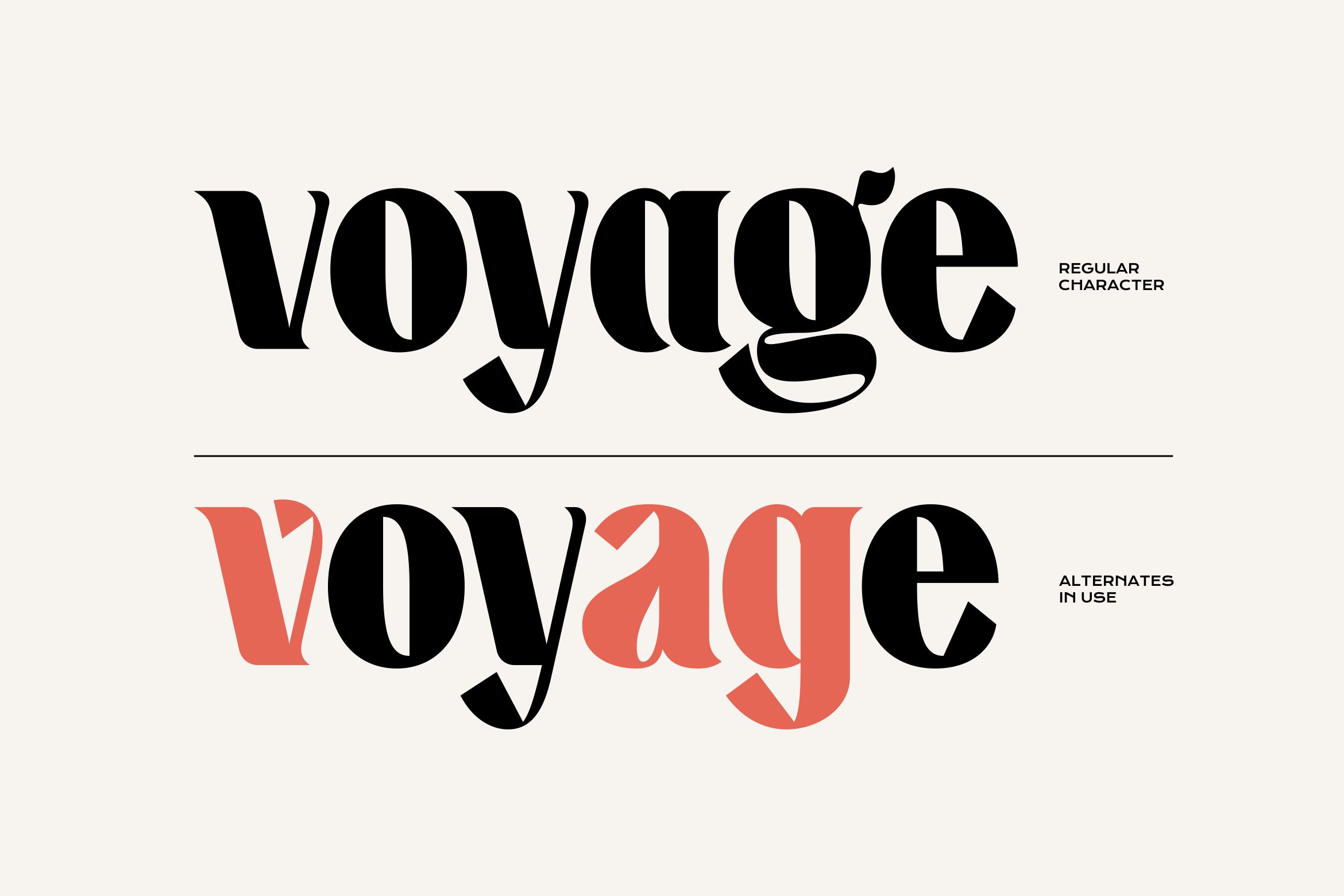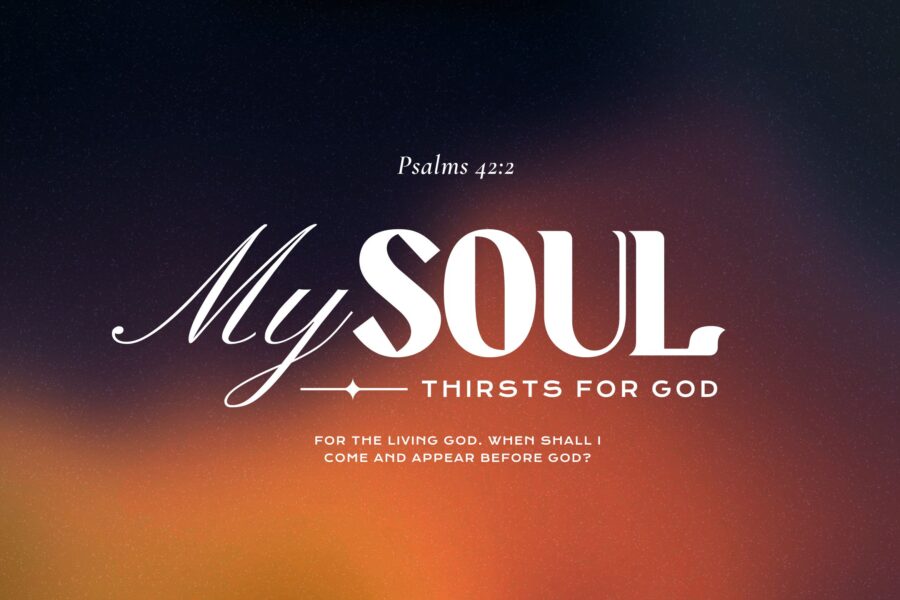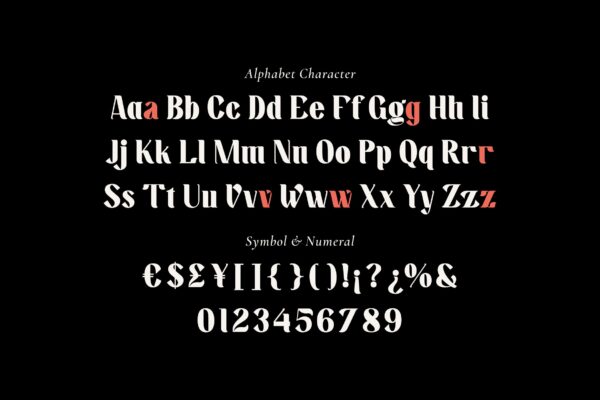
Wisdom Teach is an expressive serif display font that combines sharp contrast and bold rhythm to create a distinctive typographic presence. Its unique alternates and sculpted strokes add a creative flair, making it ideal for modern branding, album covers, posters, logotypes, or spiritual and motivational quotes. Each character feels thoughtfully crafted to balance elegance and power in a visually striking form.
Designed with high readability and impactful style, Wisdom Teach supports standard punctuation, numerals, currency symbols, and multilingual characters. With stylistic alternates included, this font gives designers the flexibility to create dynamic layouts and rich visual storytelling in both digital and print formats.